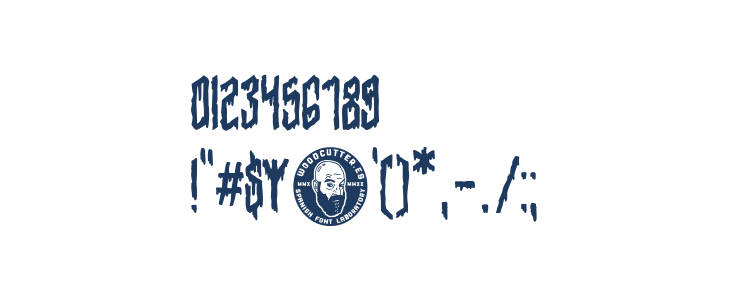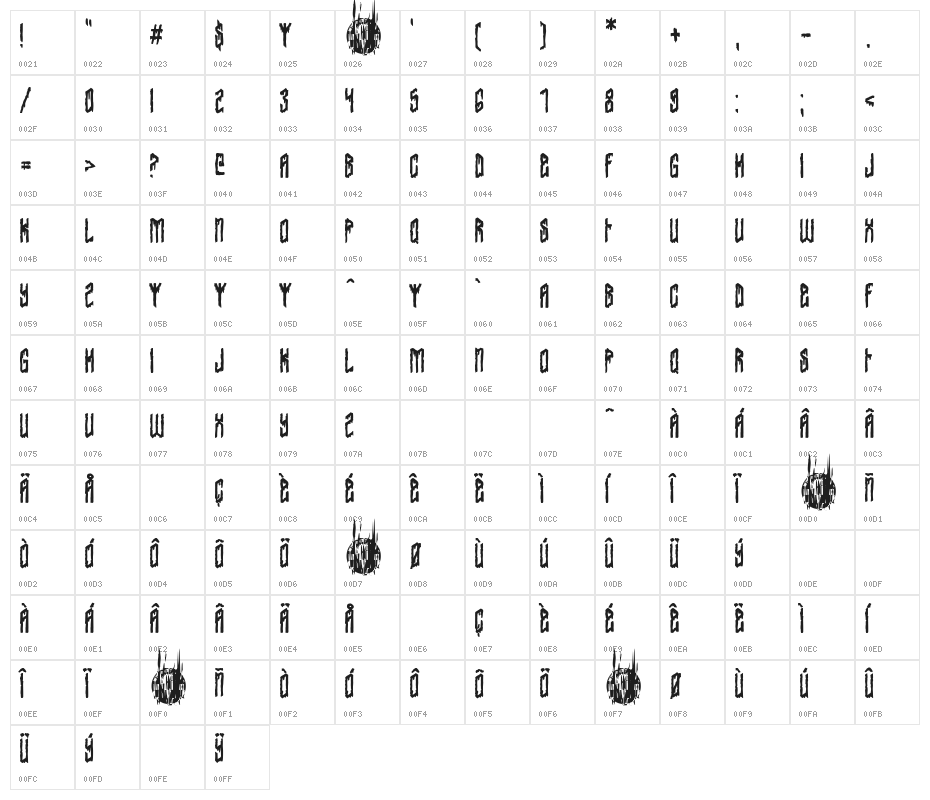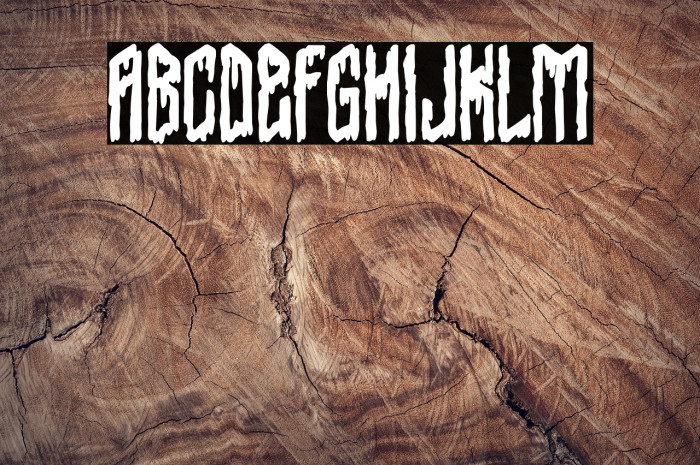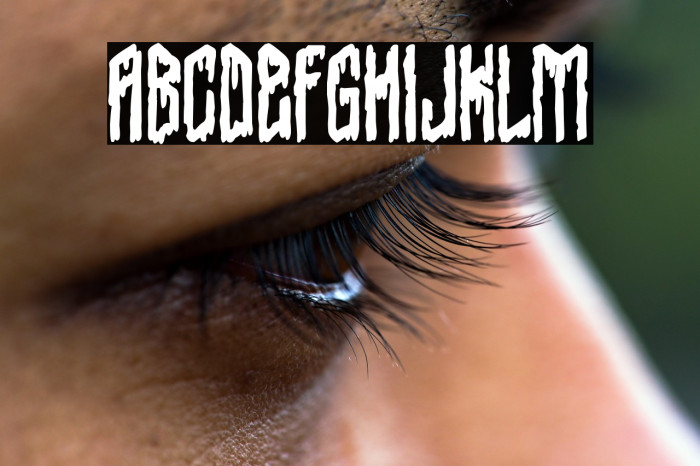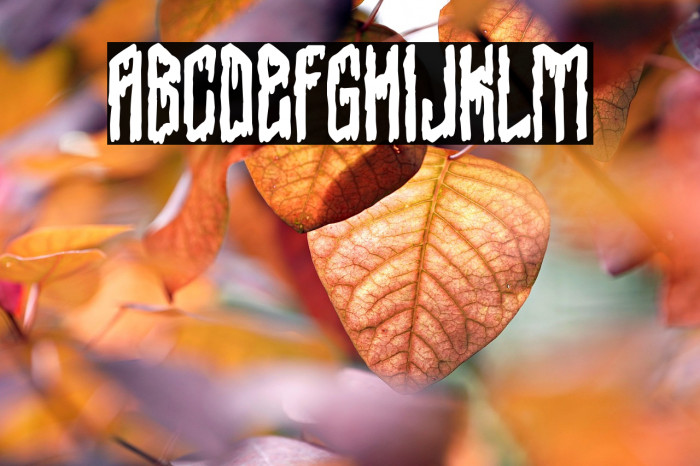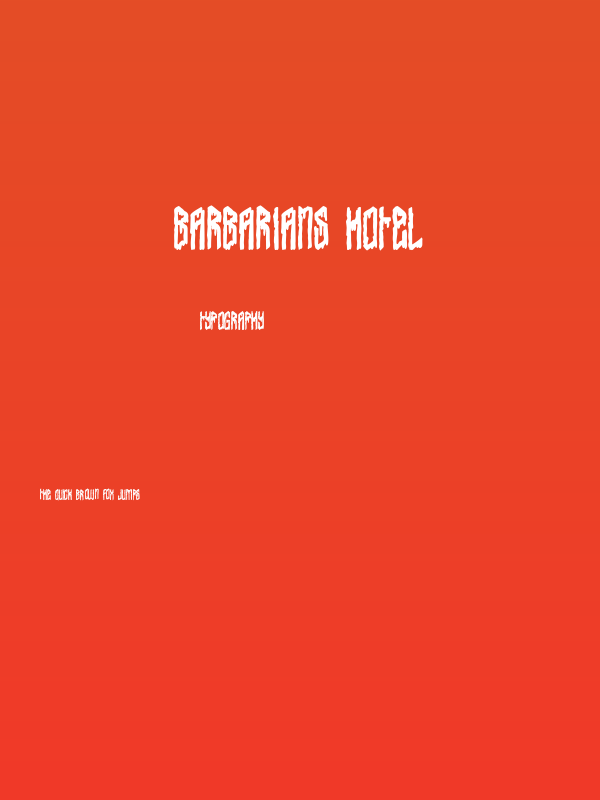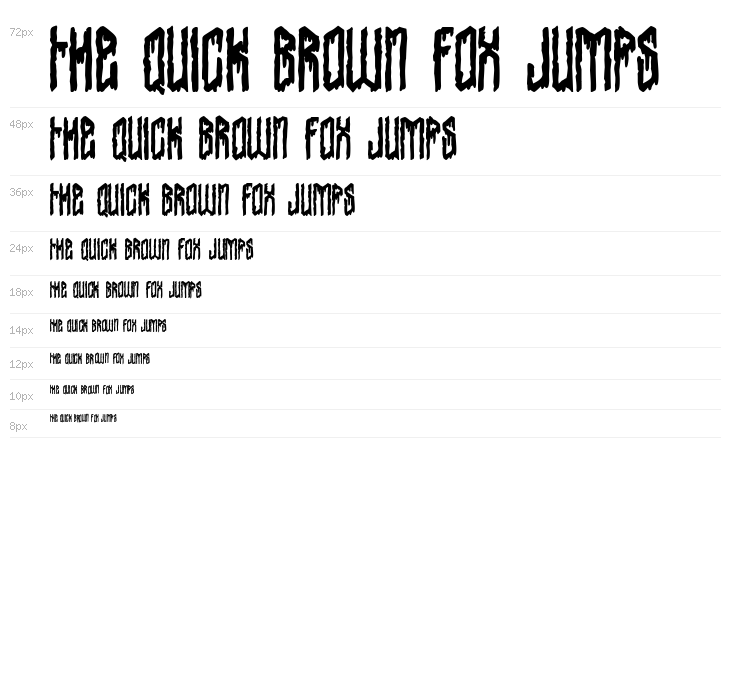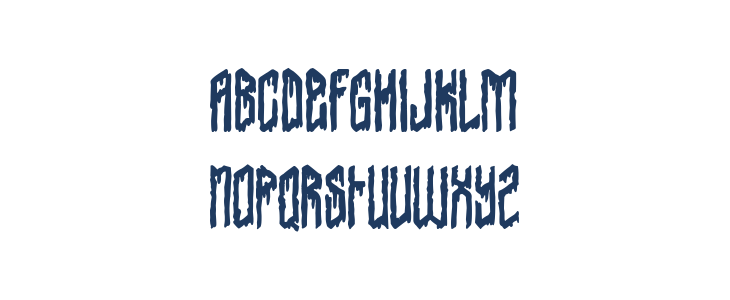
Barbarians Hotel Font
Barbarians Hotel Description
This font features a rugged, distressed style that evokes a sense of raw energy and boldness. The characters have a jagged, uneven appearance, reminiscent of hand-carved or eroded surfaces. The uppercase and lowercase letters maintain a consistent height, adding to the uniformity despite their irregular edges. Numbers and special characters follow the same aesthetic, ensuring a cohesive look across all glyphs. This font's unique style makes it stand out, ideal for projects that require a touch of edginess and creativity.